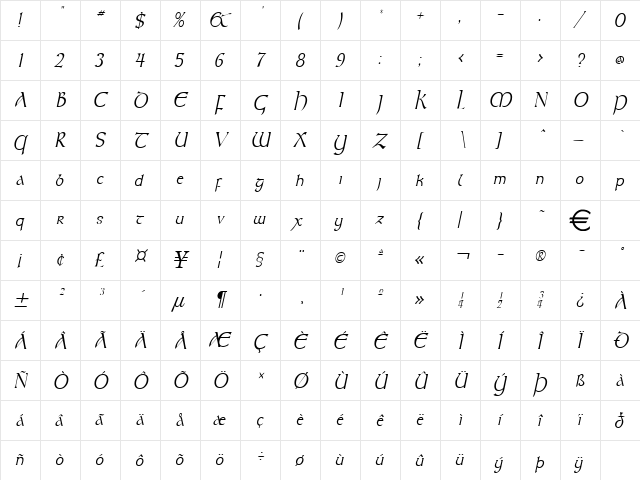
KeltCondensed Italic
Design Context for KeltCondensed Typeface
KeltCondensed takes a measured approach to typography — its balanced proportions and neutral character make it a reliable workhorse for both digital and print work. Its italic angle brings a sense of urgency and motion to the letterforms. Its narrow stance lets it pack a punch even in space-constrained designs.
Pro Tip: Use KeltCondensed for emphasis, pull quotes, and subheadings where its slanted energy can add rhythm to the layout.